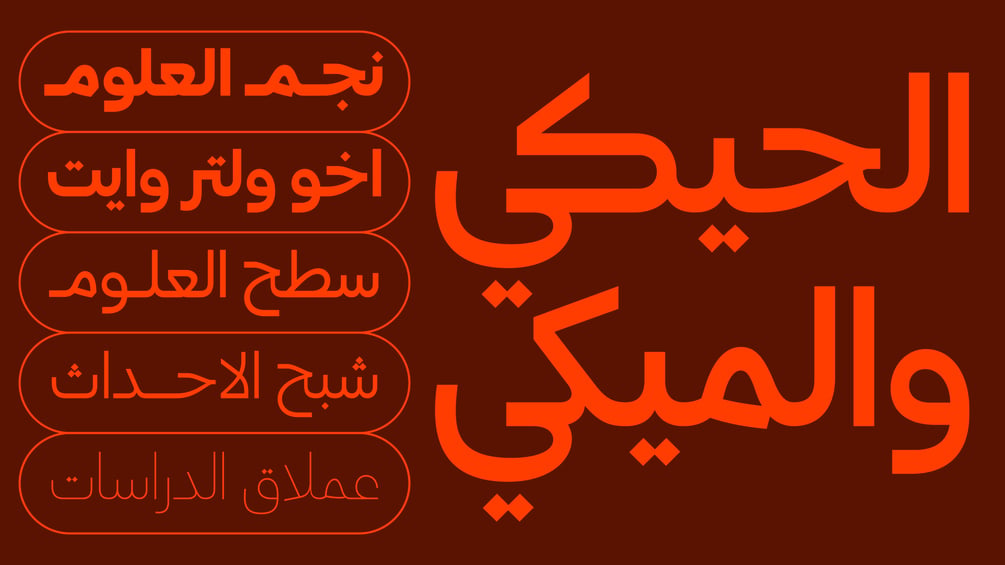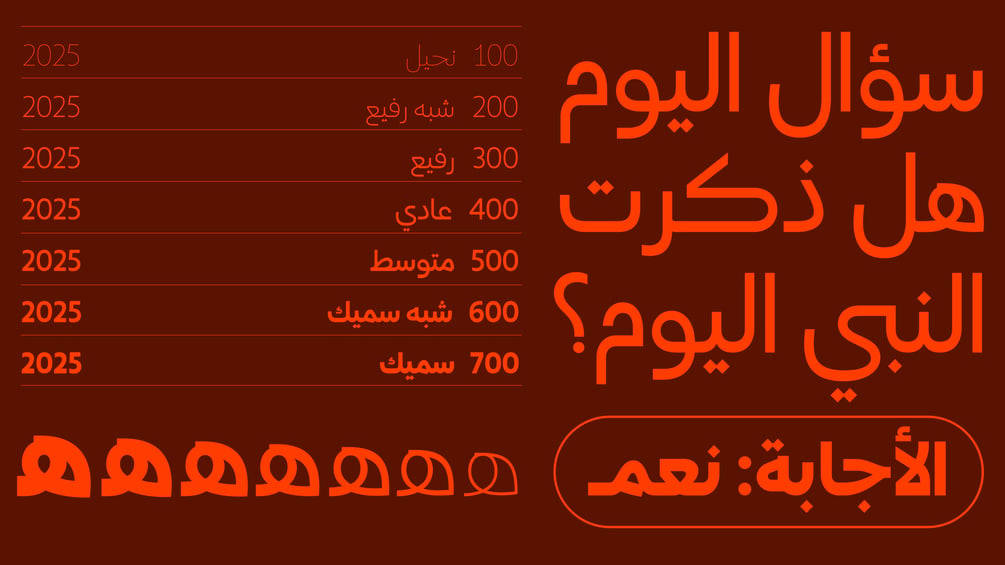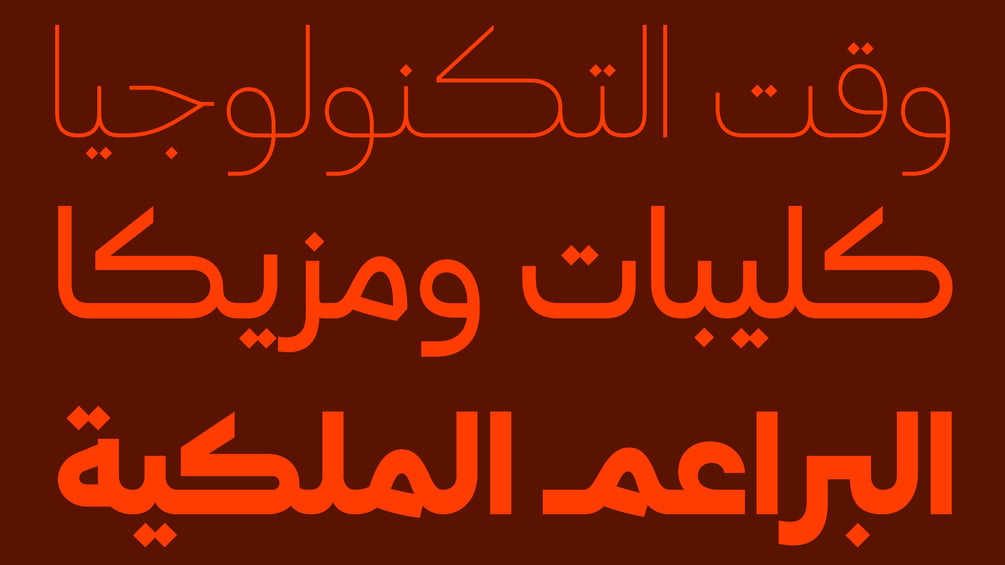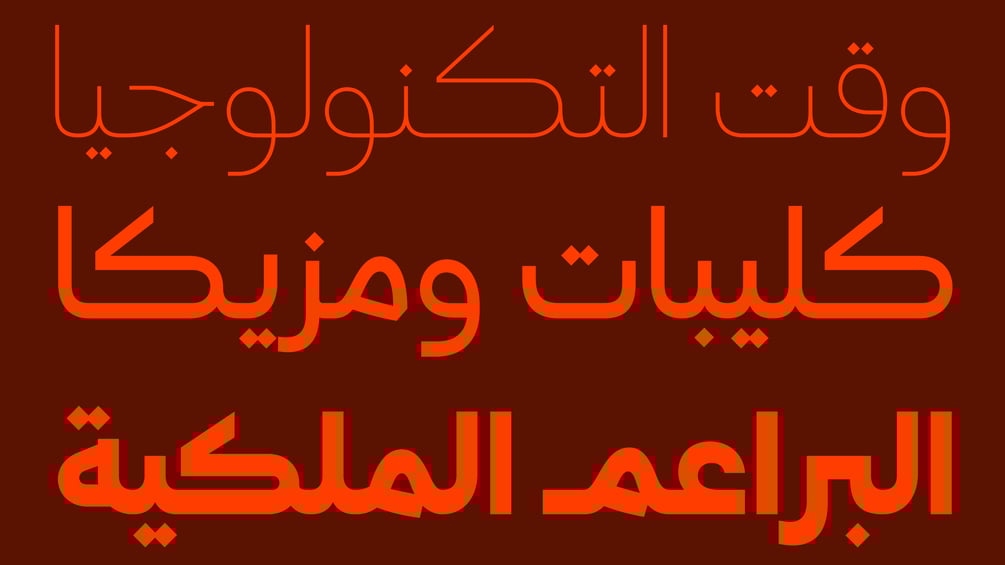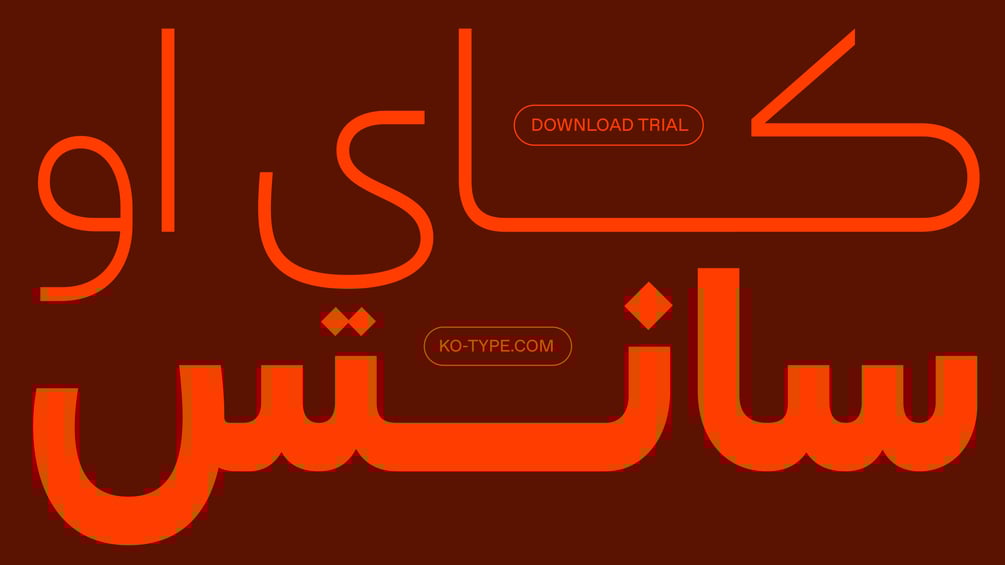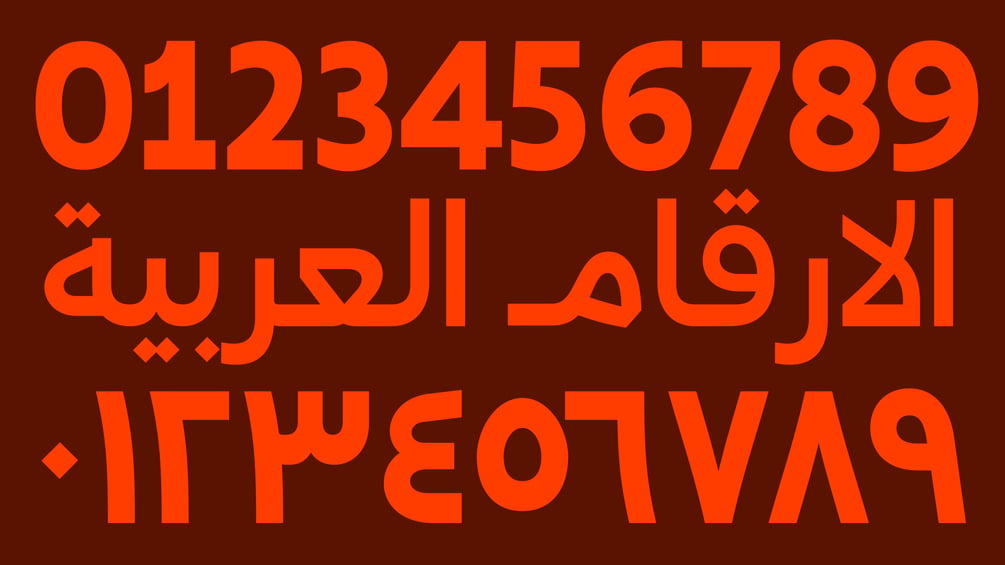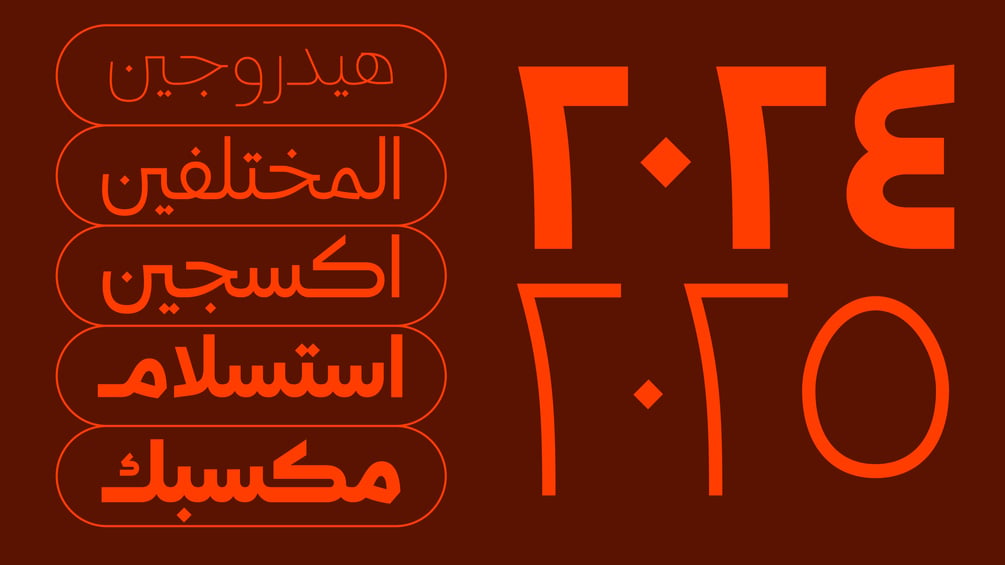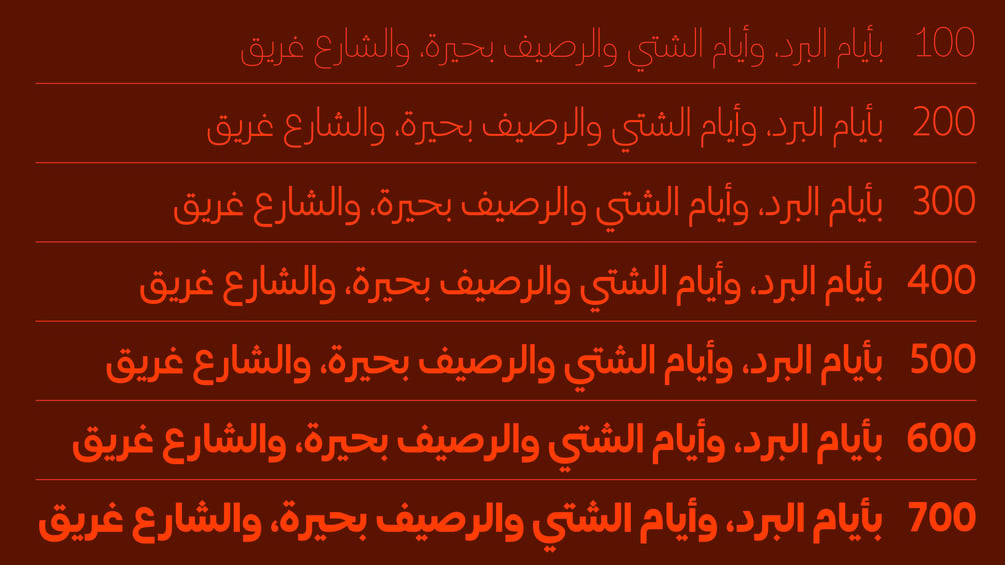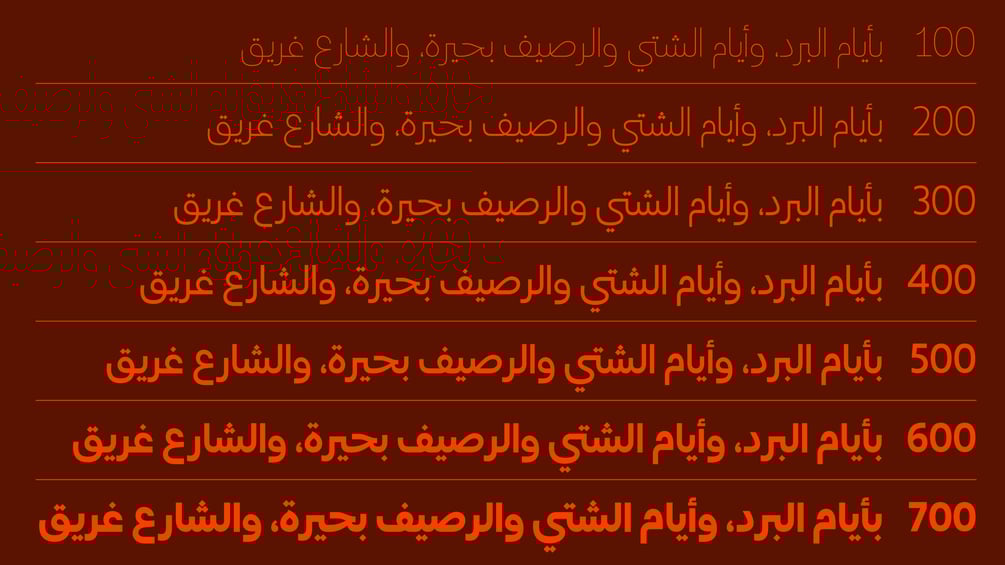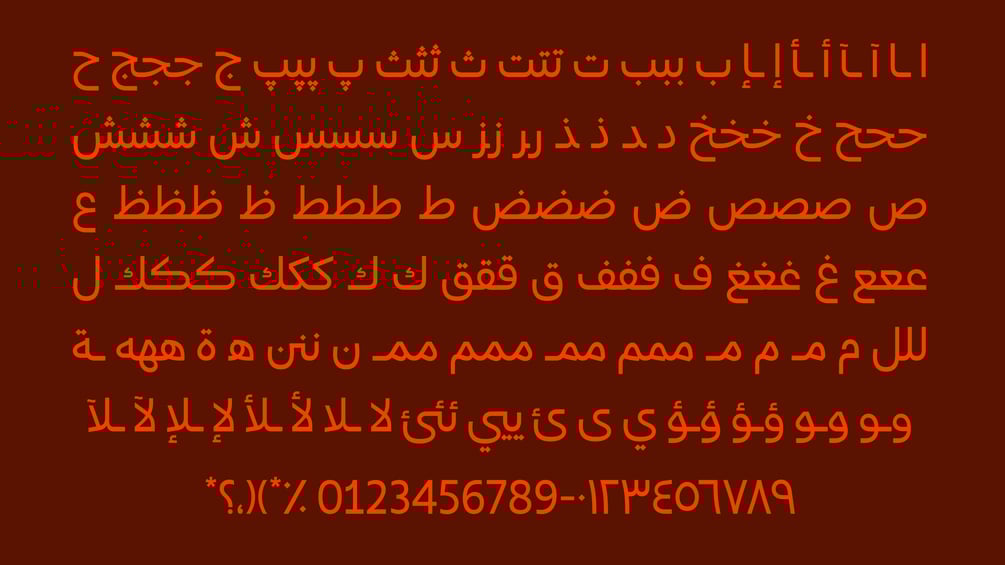
KO Sans Typeface
KO Sans typeface
KO Sans is an Arabic typeface that seamlessly blends geometric and humanist sans style, offering both clarity and versatility. It comes with 7 weights ranging from Thin to Bold and an extensive selection of stylistic sets, providing ample customization options. Designed with UI-friendliness in mind, KO Sans is perfect for both web interfaces and print applications, ensuring readability and flexibility across various platforms. It also includes ligatures and stylistic sets that enhance its design, offering users a wide range of choices for personalized typography.
Sans Arabic typeface
Weights and styles
7 weights
OpenType Features
Stylistic Alternates, Standard Ligatures, Required Ligatures.